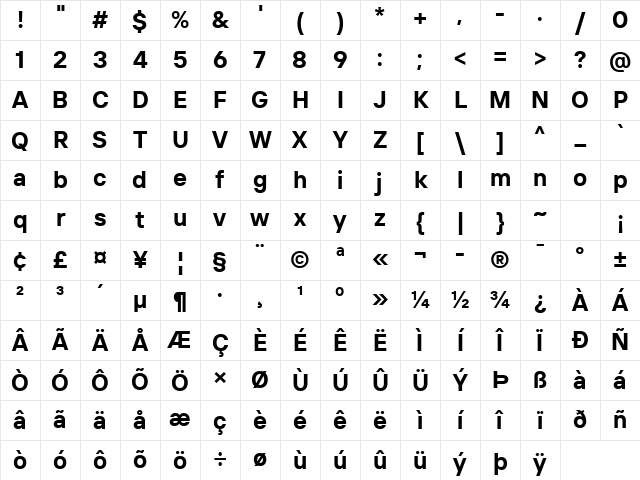
TT Interphases Pro Trl Bd Free Font
TT Interphases Pro Trl Bd
Style: Bd
Designer: Designed by Antonina Zhulkova, Pavel Emelyanov, Marina Khodak, Kseniya Karataeva, Nadyr Rakhimov, Nadezhda Polomoshnova, Katya Kurtova, Tamara Streltsova, Radik Tukhvatullin, Yulia Gonina. Technical designers Ivan Gladkikh, Yuriy Nako, Tasya Petelina, Vic
Design Context for TT Interphases Pro Trl
TT Interphases Pro Trl is a composed and adaptable typeface that performs quietly and consistently across a wide range of design contexts. Its bold stroke weight gives it real presence on the page.